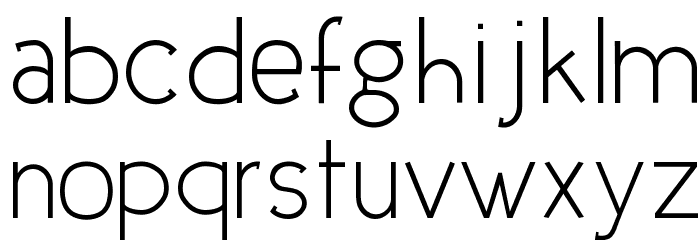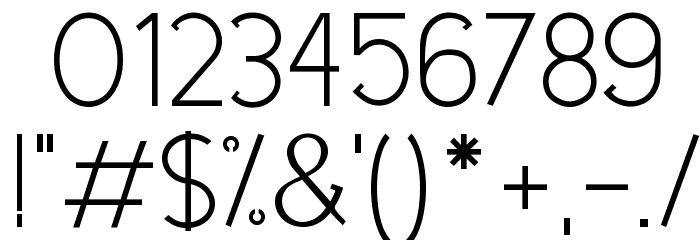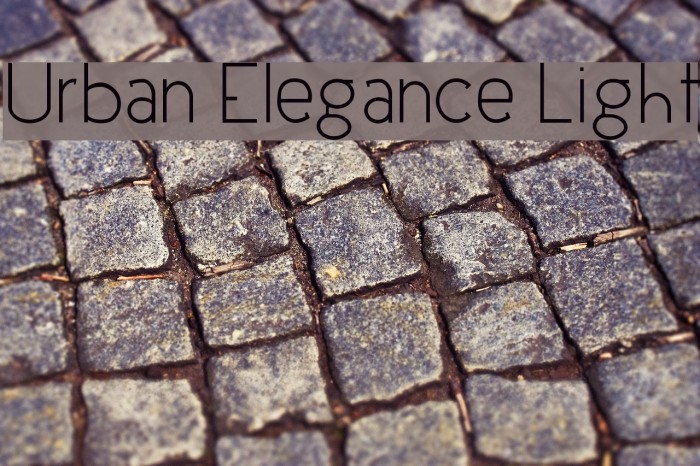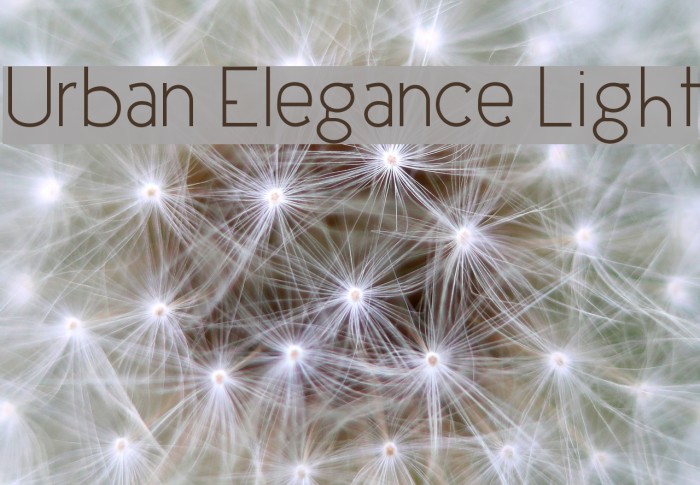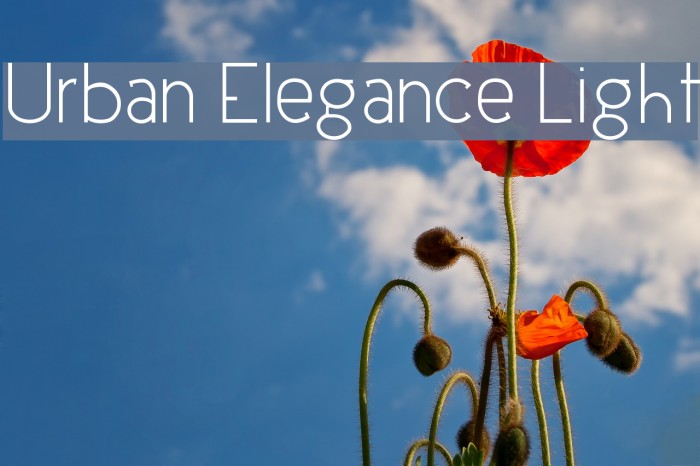
Urban Elegance Light Font
This font features a clean and modern aesthetic with a light weight, offering a sleek and sophisticated look. Its sans-serif style is characterized by simple, geometric shapes and uniform stroke widths, providing excellent readability. The characters are well-proportioned, with a balanced mix of straight lines and subtle curves, giving it a contemporary feel. The spacing between characters is normal, ensuring clarity and legibility across various applications. This font is versatile, making it suitable for both digital and print media, and it can easily adapt to different design contexts.
A modern, light sans-serif font with clean lines and excellent readability.